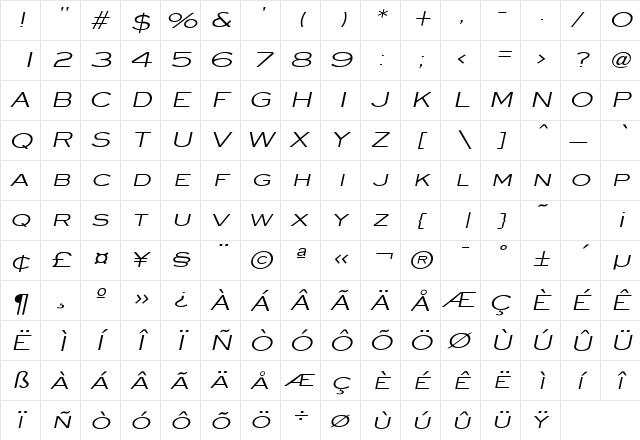
Eye glass Wide Italic
Design Context for Eye glass Wide Typeface
Eye glass Wide is a composed and adaptable typeface that performs quietly and consistently across a wide range of design contexts. Its italic angle brings a sense of urgency and motion to the letterforms.